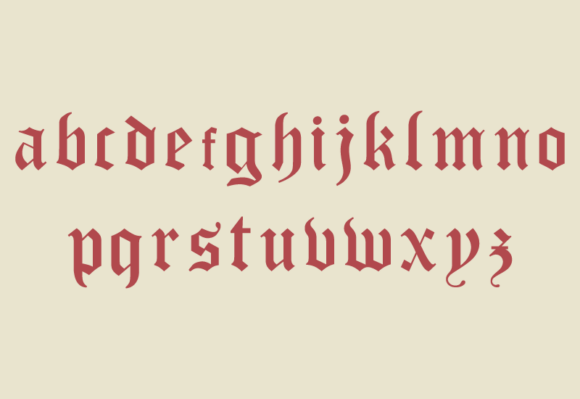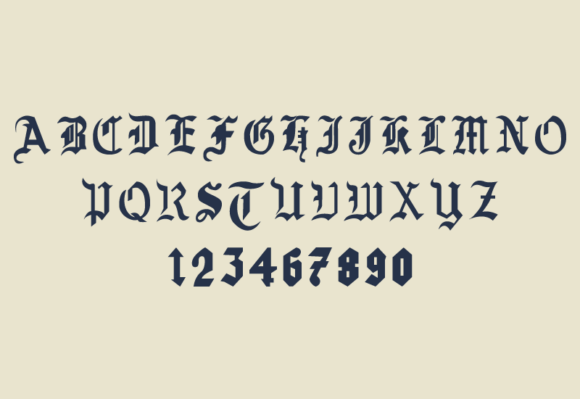
Introduction to Old English Texas Font
Have you ever stumbled upon an old, dusty book in a vintage bookstore and been captivated by the intricate lettering that seemed to leap off the page? That’s the magic of the Old English Texas Font, a bold and decorative blackletter typeface that’s sure to transport your creative project to a bygone era. Whether you’re designing a medieval-themed poster or a vintage Western logo, this font is the perfect design resource to add a touch of historical charm and classic elegance to your work.
As a designer, you know the importance of selecting high-quality fonts that can elevate your creative project to the next level. With the Old English Texas Font, you’ll get a transparent background and a free download, making it easy to integrate into your design workflow. But what really sets this font apart is its unique blend of classic Old English styling with a bold Texas twist, making it a truly distinctive and valuable addition to any design library.
Key Features of Old English Texas Font
- High-quality, distressed design with a unique blend of old and western elements, perfect for creative projects.
- Includes a range of characters, including uppercase and lowercase letters, numbers, and special symbols, making it a versatile design resource.
Honest Review: Old English Texas Font
I recently had the chance to work with the Old English Texas Font, and I must say it’s a great addition to any design project. One of the things I love about this font is its high quality, making it perfect for creative projects where you need a touch of sophistication.
One of the standout features of this font is its transparent background, which allows you to easily place it over any image or design without worrying about clashing colors. This makes it a great resource for designers looking for a versatile font that can be used in a variety of contexts.
- High quality and detailed lettering
- Transparent background for easy design placement
- Only available in a single style, which may limit its versatility
- Not ideal for small text sizes due to its bold and ornate design
Overall, I’m impressed with the Old English Texas Font. It’s a great design resource that can add a touch of elegance to any project. With its high quality and transparent background, it’s a must-have for any designer looking to elevate their creative project.
The Old English Texas Font is a unique, high-quality design resource that can add a touch of rustic elegance to your creative projects. With its transparent background, this font is perfect for layering and customizing your designs.
Tips for Getting the Most Out of Old English Texas Font
To get the most out of the Old English Texas Font, try the following:
- Use the font in combination with other design elements to create a unique and eye-catching design.
- Experiment with different font sizes and styles to add depth and interest to your design.
Common Use Cases for Old English Texas Font
The Old English Texas Font is perfect for a variety of creative projects, including:
- Wed